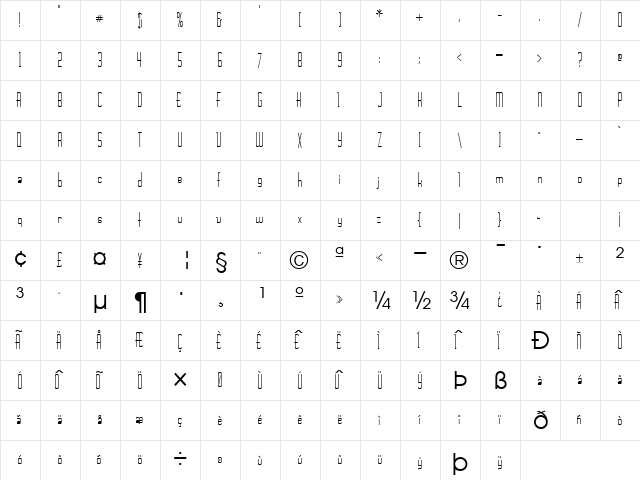
High Regular
Design Context for High Typeface
High takes a measured approach to typography — its balanced proportions and neutral character make it a reliable workhorse for both digital and print work.